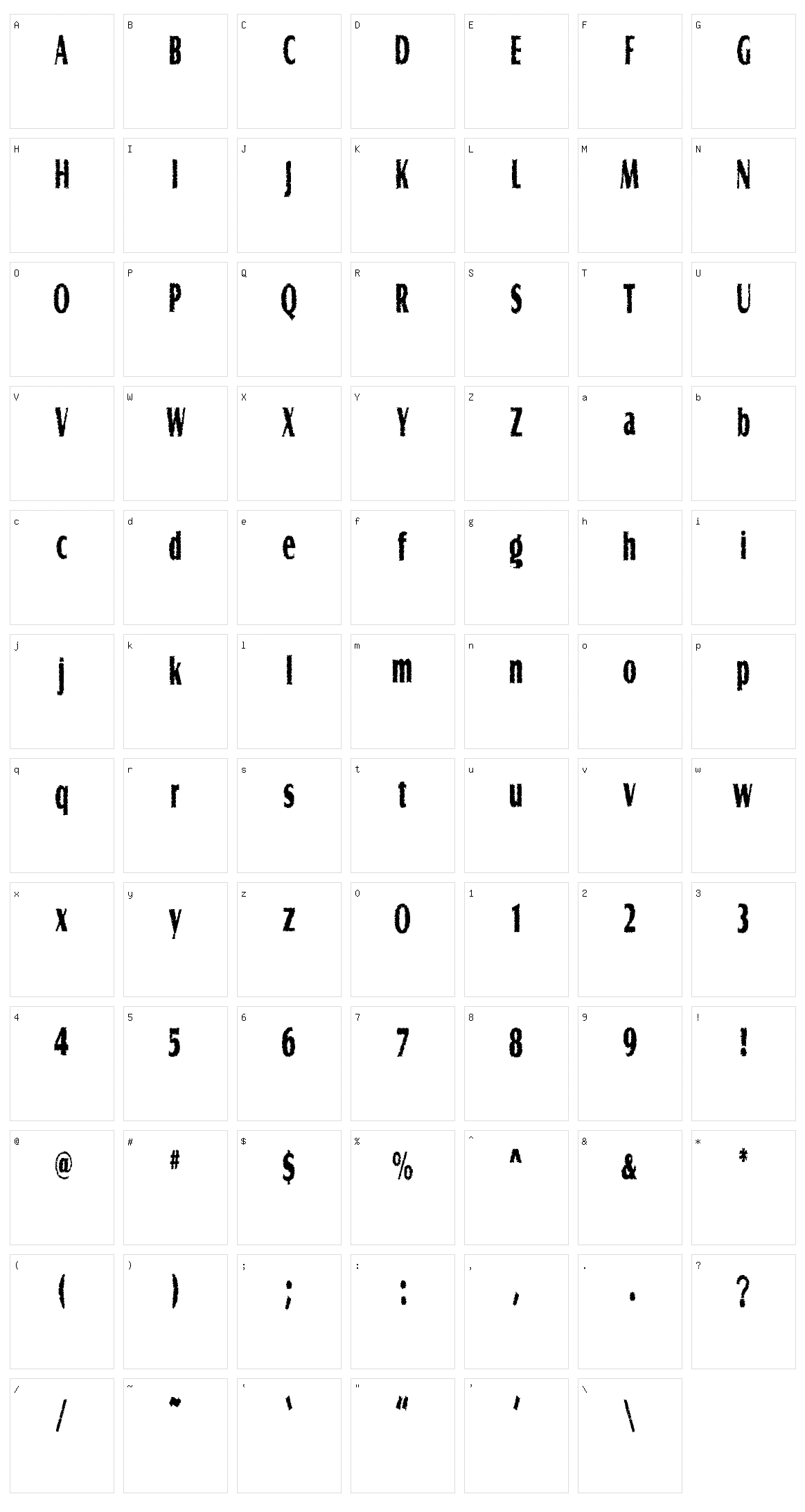
The free font Graveyard Shift is carefully designed by Peter Stanton, showcasing a thoughtful balance of creativity and usability and falls under the Eroded font style. When you download the ZIP file, it contains only 48.09 KB of font files, making it lightweight and quick to download. Please review the license details below to understand permitted usage and distribution rights. If license information is not available, we recommend using this font for personal projects only or contacting the author directly for commercial usage permissions.